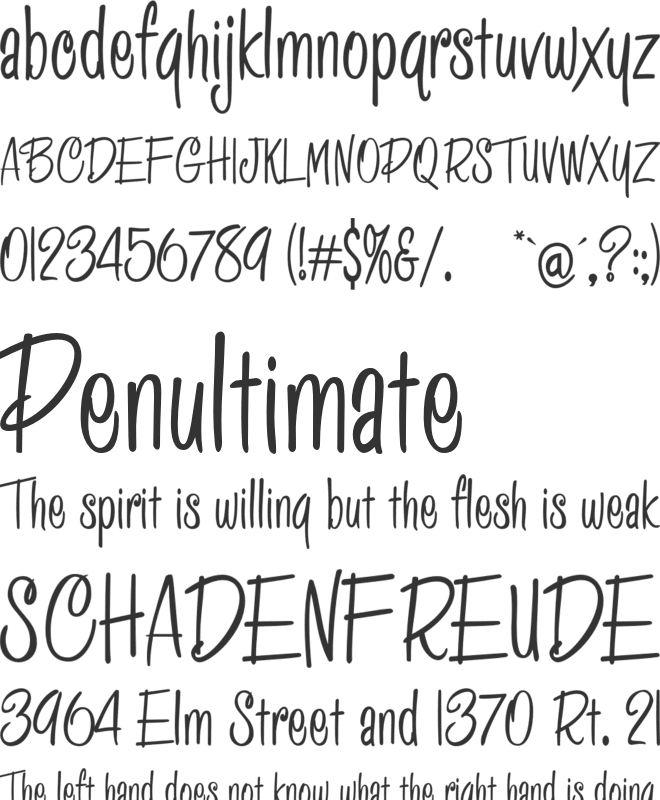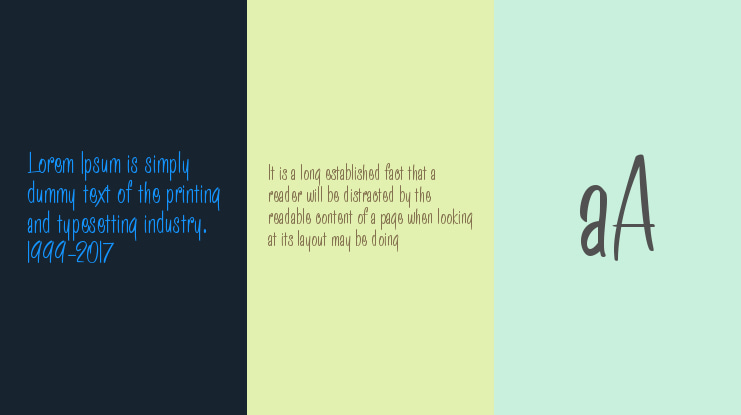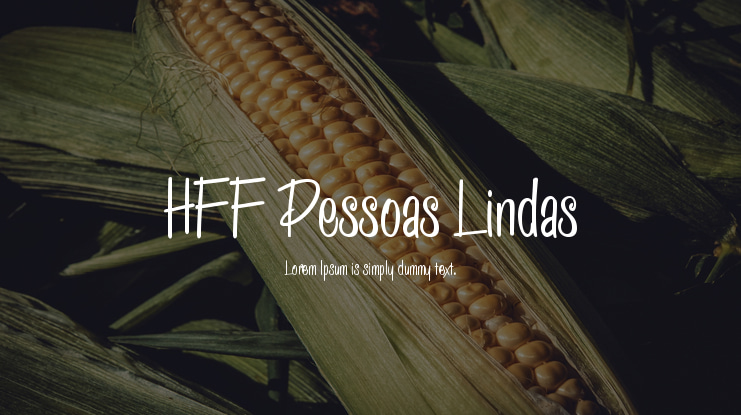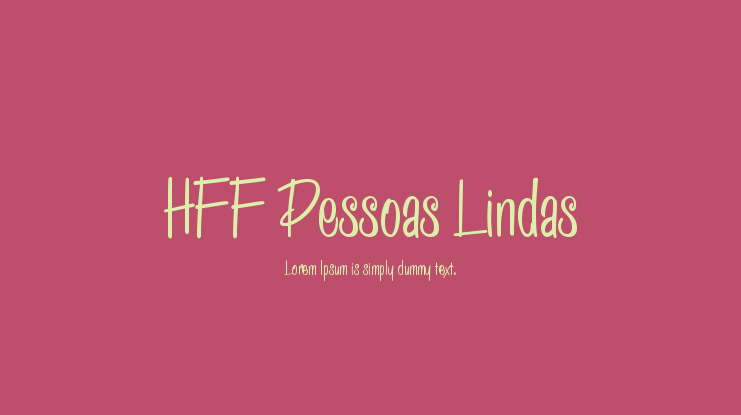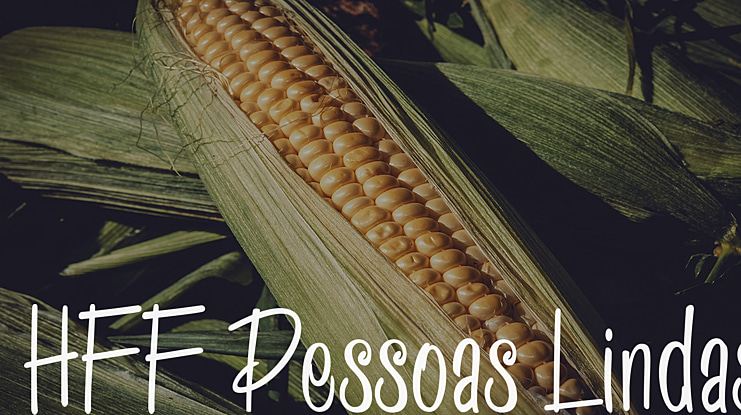
HFF Pessoas Lindas is based on Anita Lightface, from page 7 of Brushstroke and Free-Style Alphabets: 100 Complete Fonts by Dan X. Solo, first published by Dover Publications in 1977. Anita Lightface is also featured on page 88 of The Solotype Catalog of 4,147 Display Typefaces.